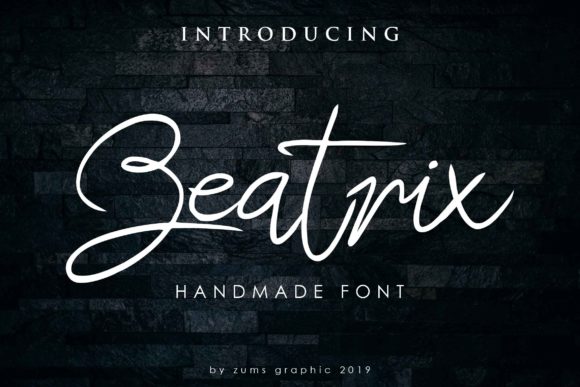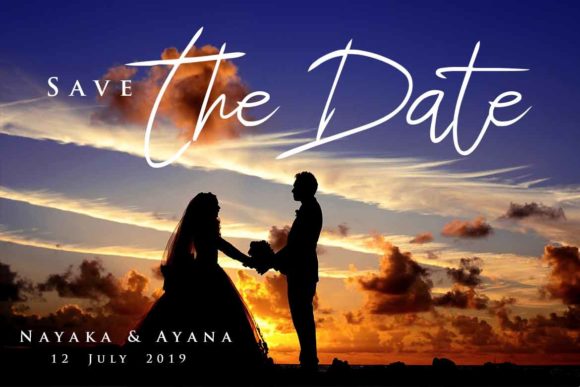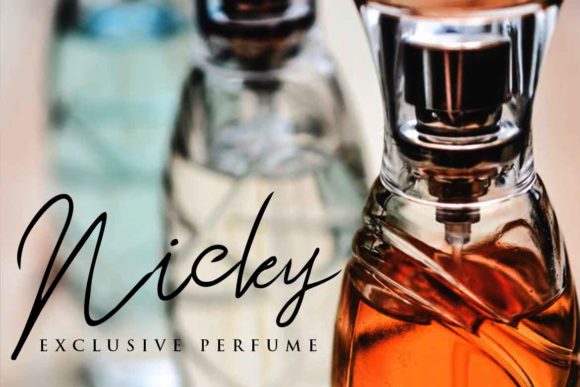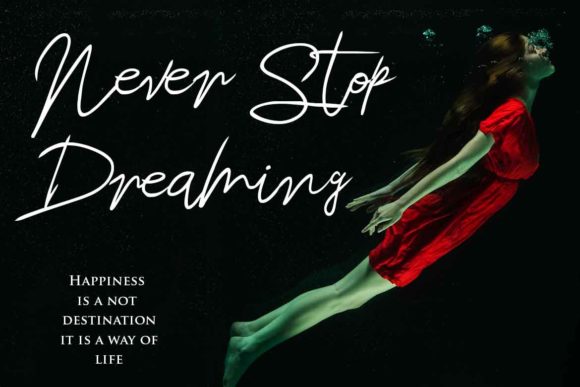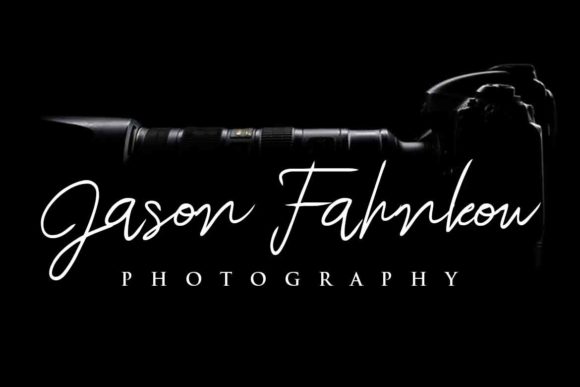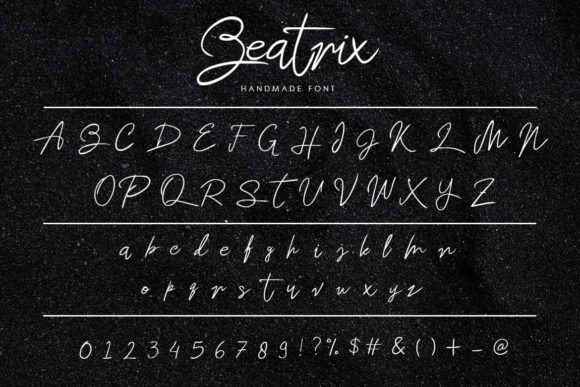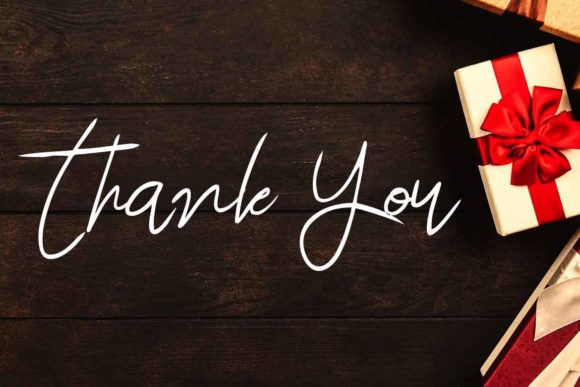
Beatrix Script Font
About Beatrix Script Font
Beatrix Script is a natural handwritten font featuring exciting and unique characters. Make your design stand out from the crowd with this unique typeface.